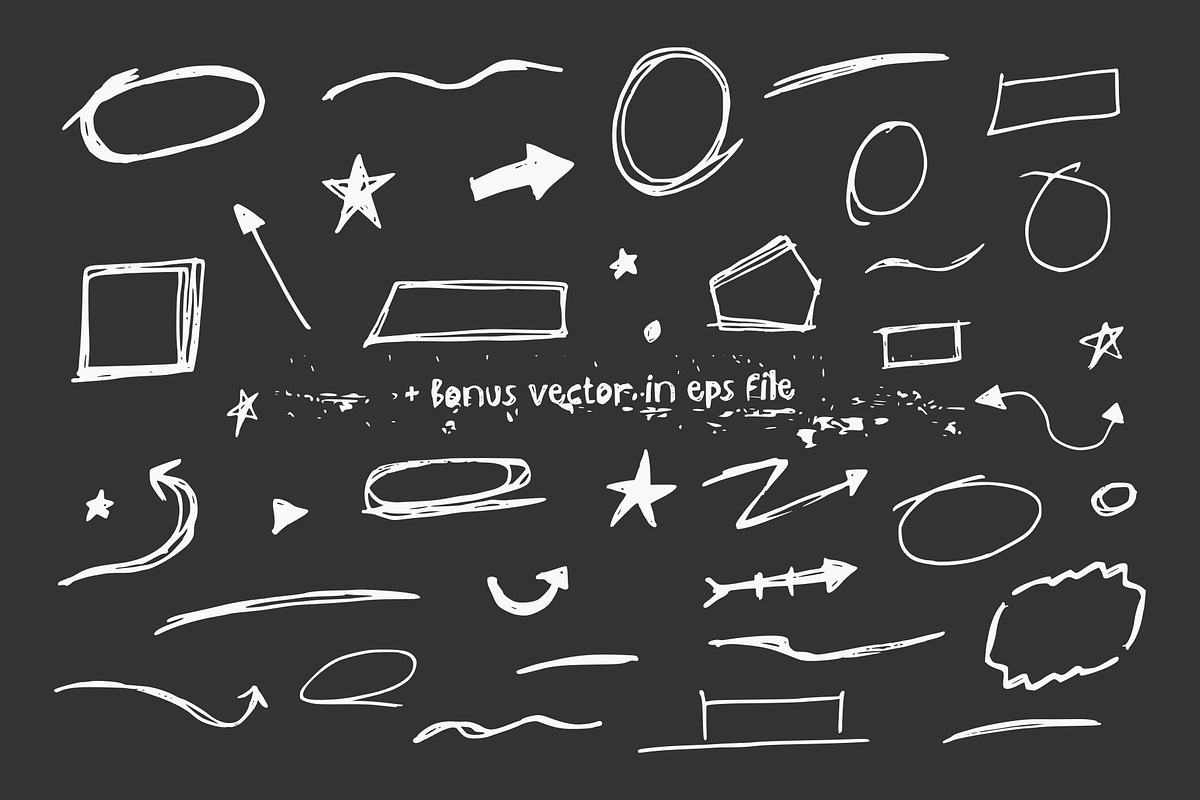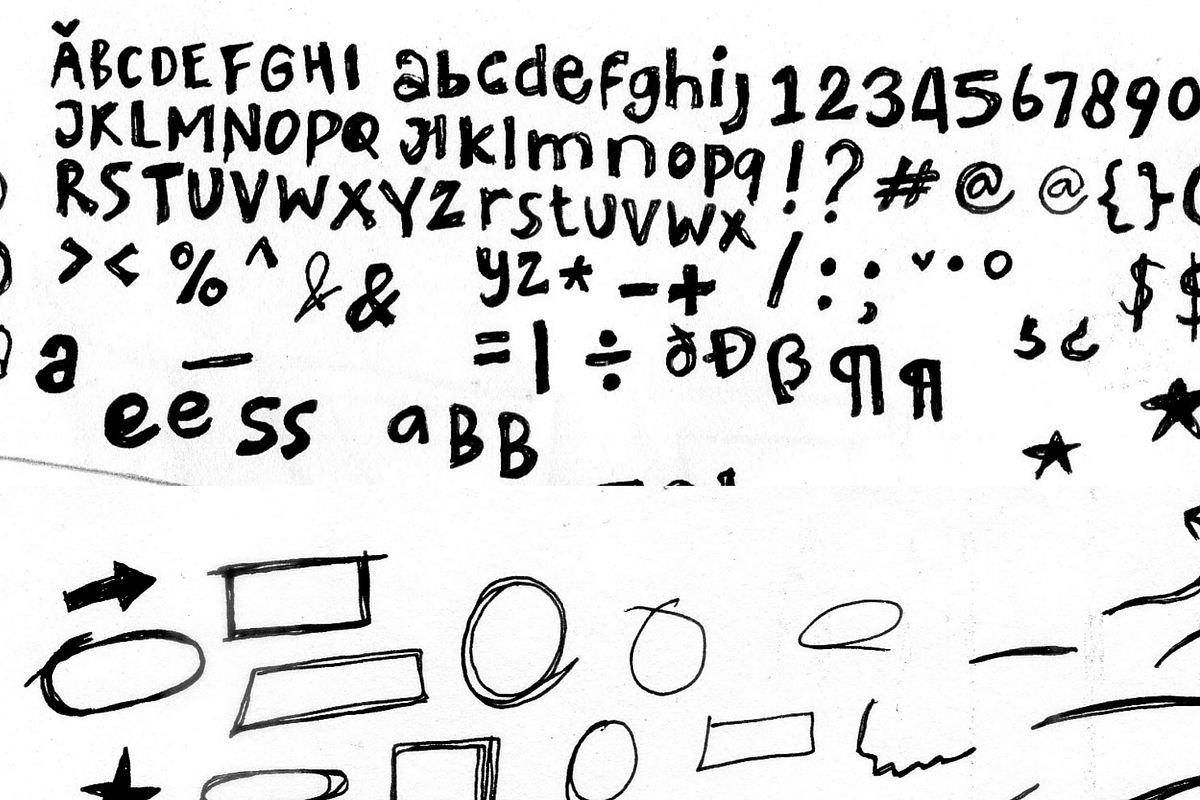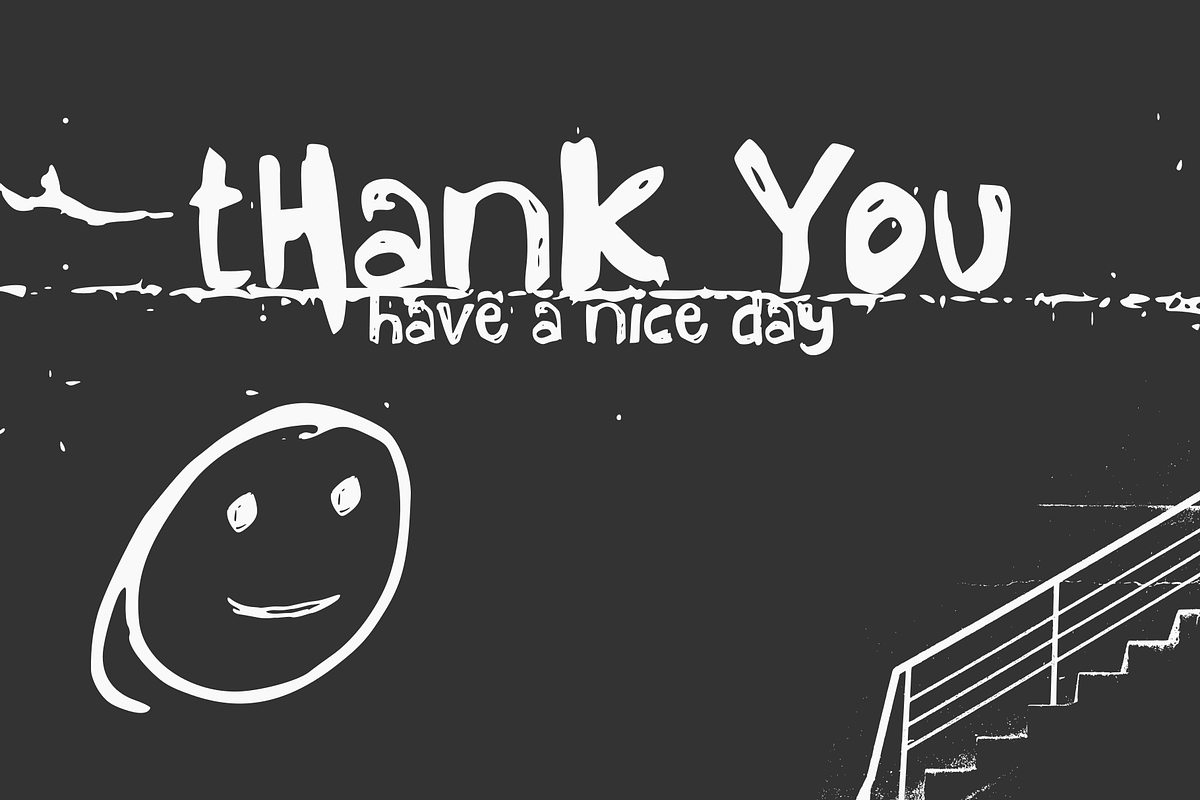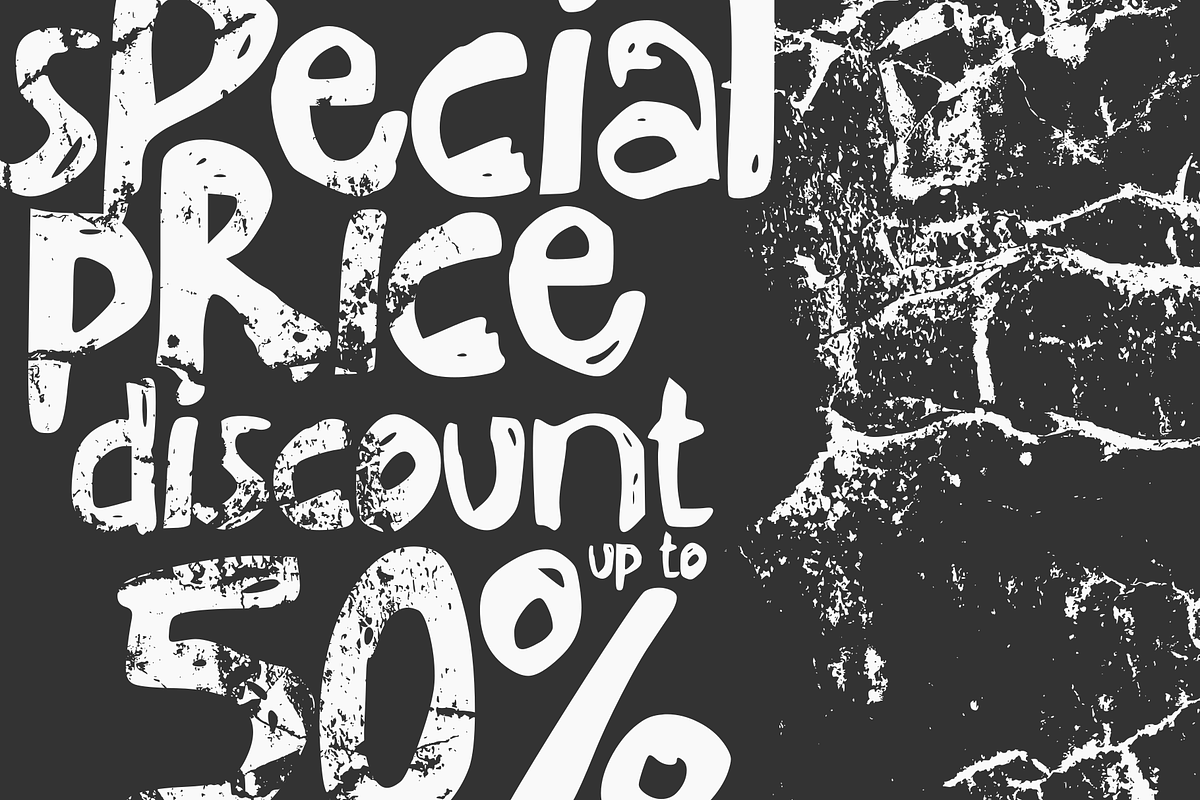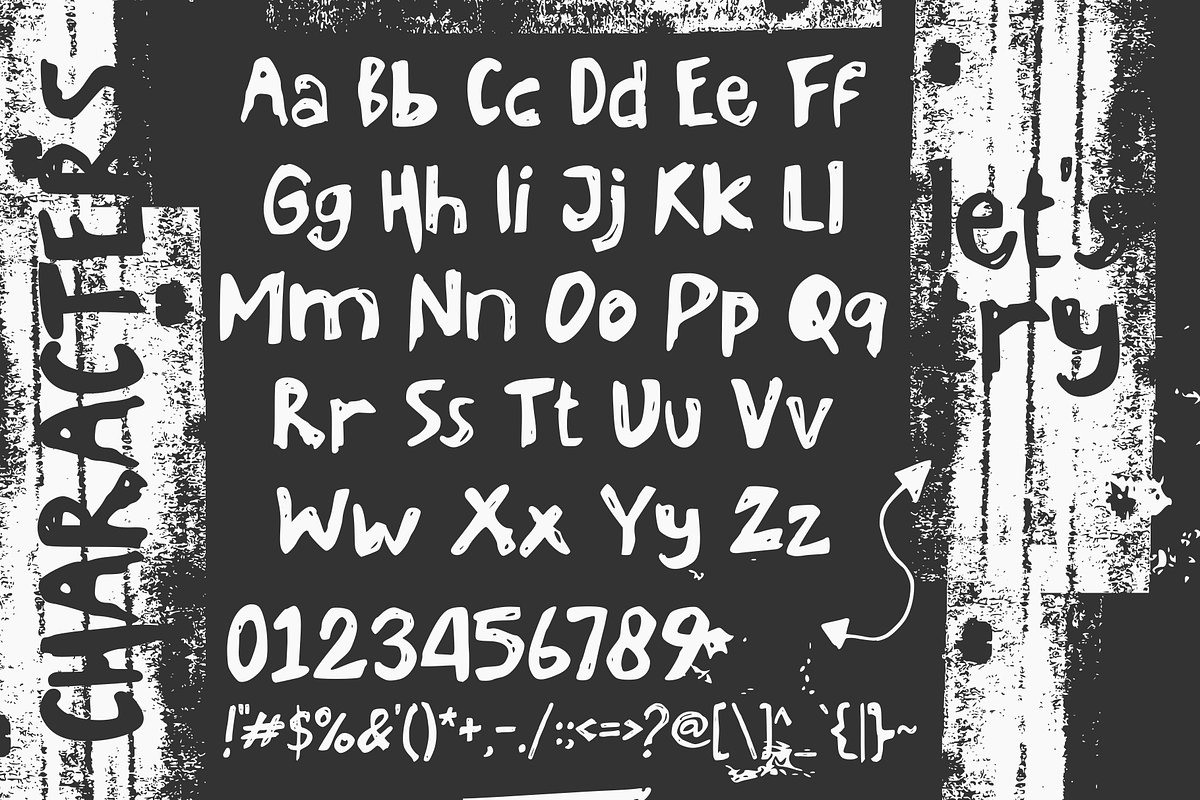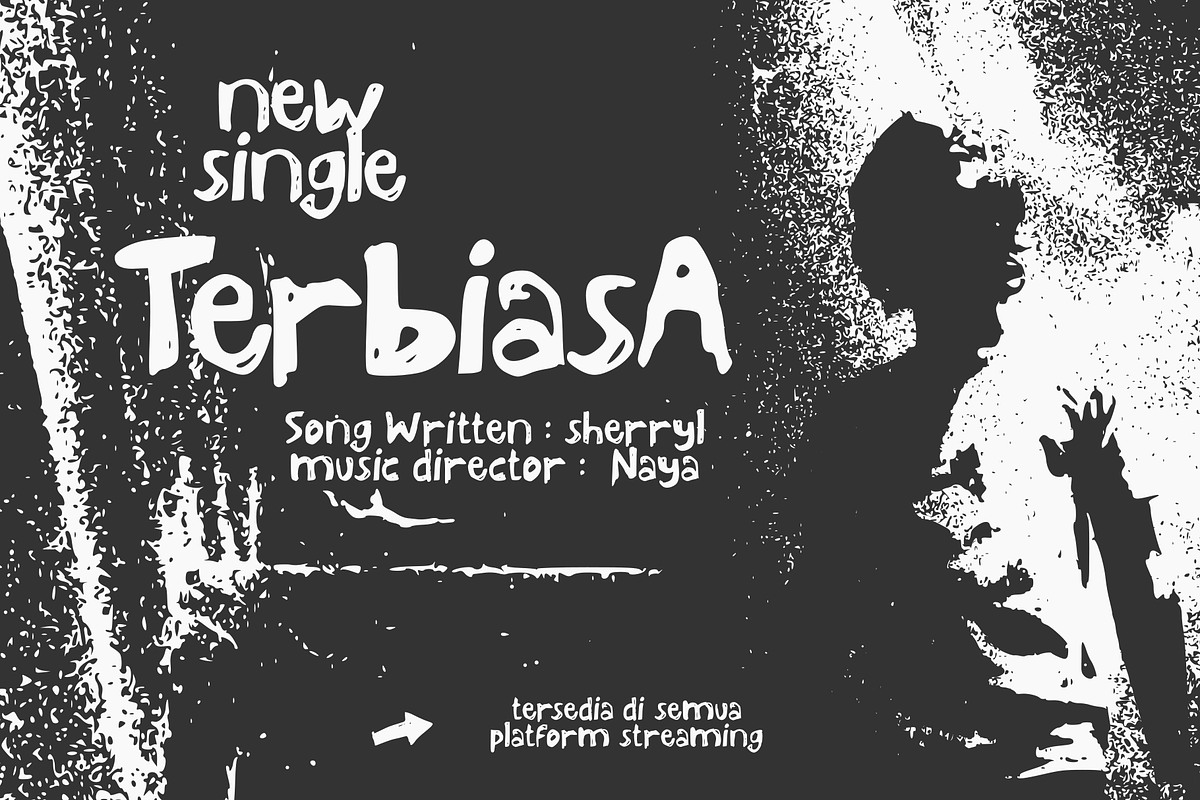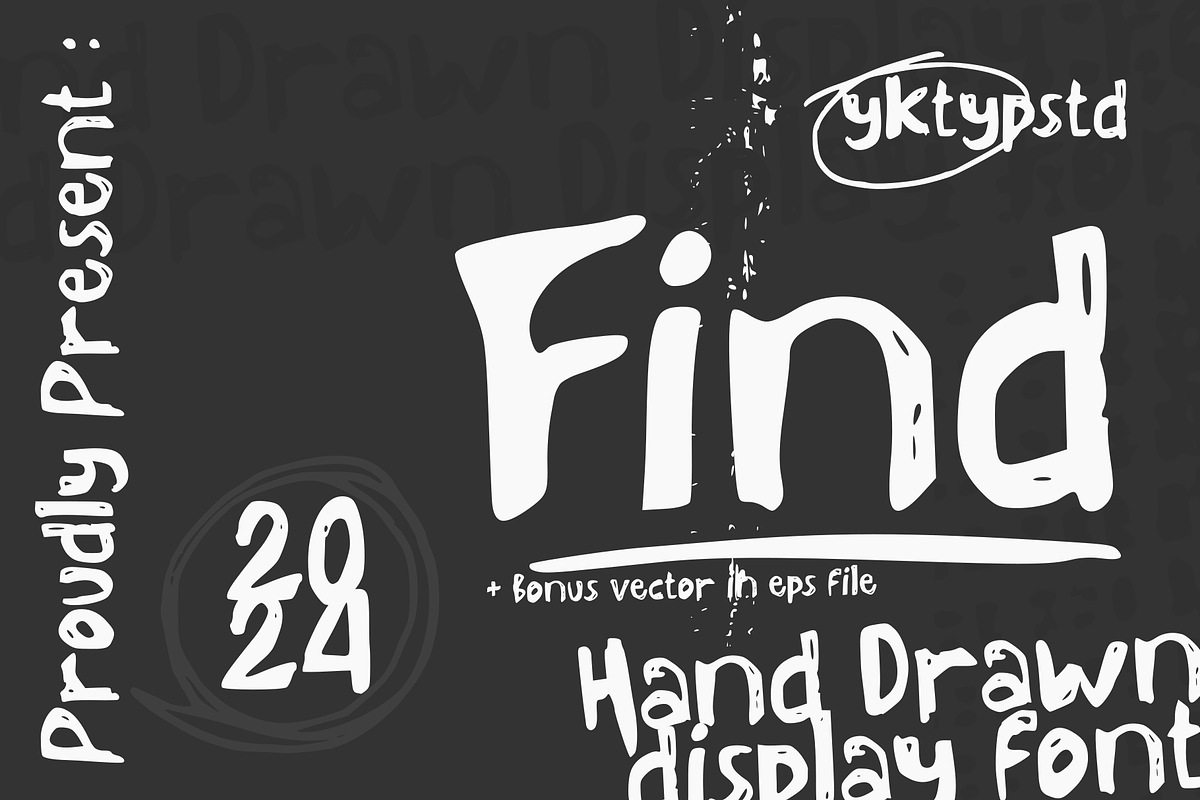
Find
Introducing ‘Find’ – a charming hand-sketched font designed to give your creative endeavors a unique edge. With an unrefined aesthetic, Find gives projects an authentic texture that includes splashes of inspired disruption. It is an excellent choice for promotional banners, posters, book covers, titles, fashion, streetwear, magazine layouts, or prominent social media ads.
Every touch of ‘Find’ promises something different from the norm and makes your designs demand attention. Additionally, it comes with bonus vectors that blend seamlessly with each design, adding another layer of visual intrigue.